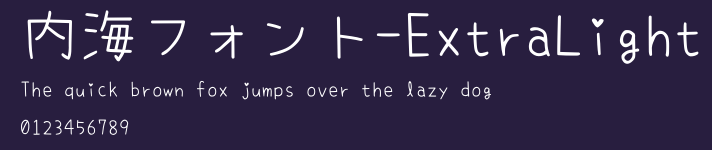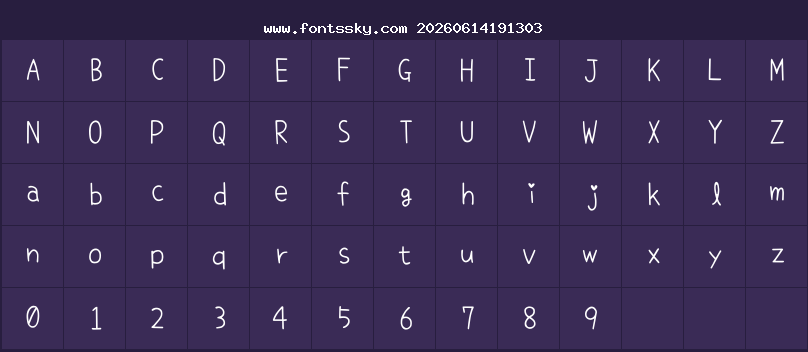
• Font Name: 内海フォント-ExtraLight
• Font Style: ExtraLight
• Full Font Name: 内海フォント-ExtraLight
• Version: Version 1.30.1
• PostScript Name: NaikaiFont-ExtraLight
• Character Count: 31384
About 内海フォント-ExtraLight.ttf
内海フォント-ExtraLight.ttf is a modern, elegant sans-serif font designed for ultimate readability and visual harmony. Perfect for branding, headlines, web design, and print materials.